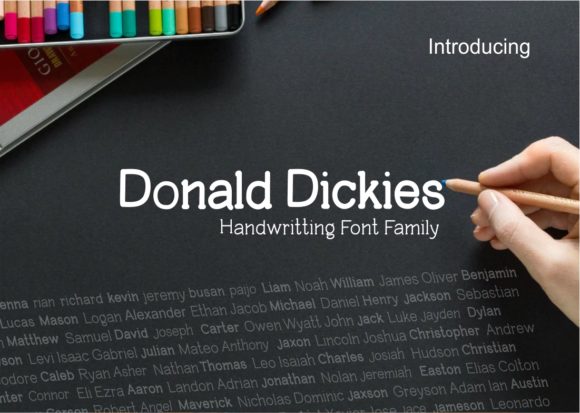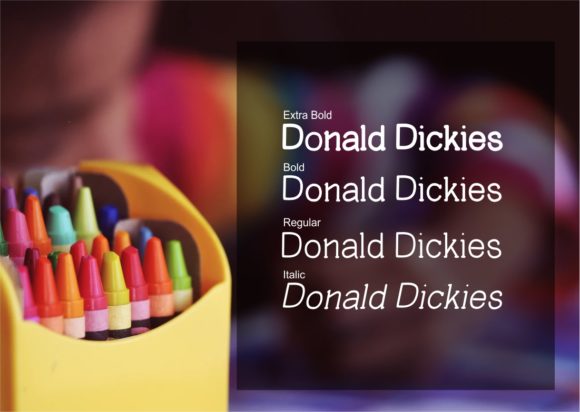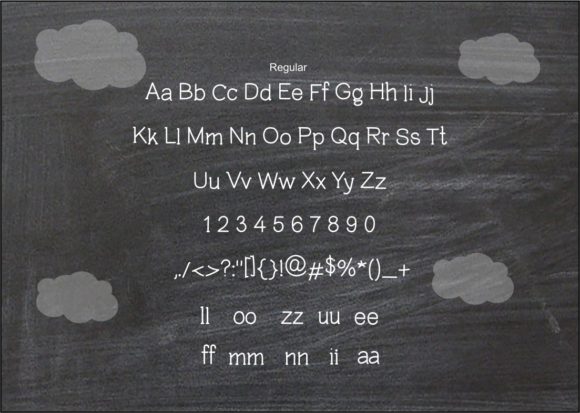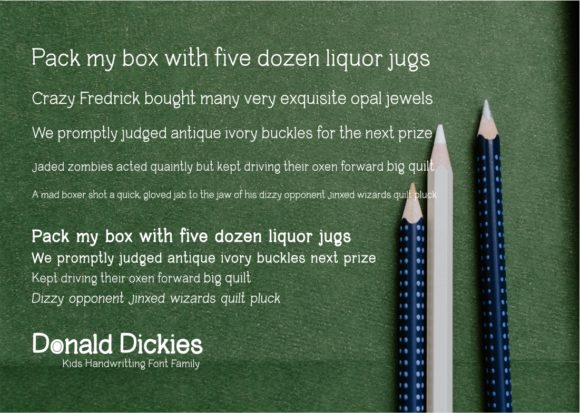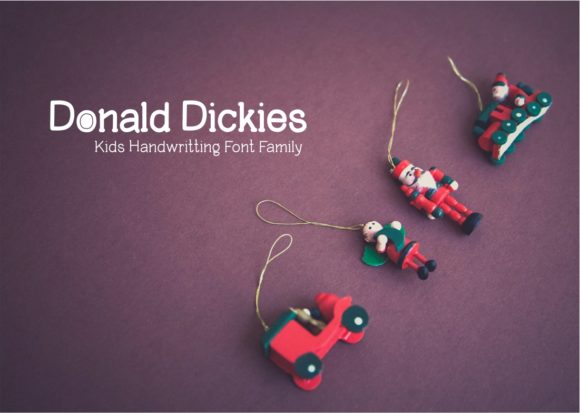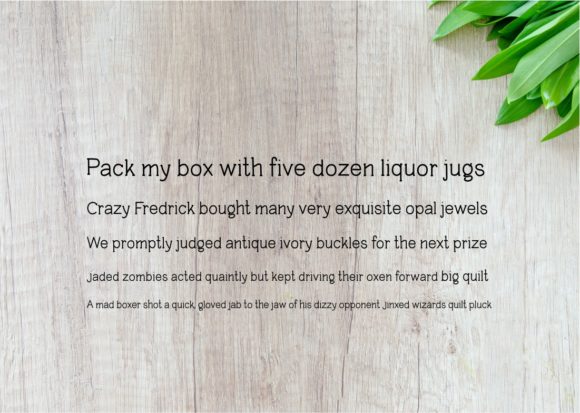
Donald Dickies Font
About Donald Dickies Font
Donald Dickies is a whimsical and effortless handwritten font. Whether you’re looking for fonts for Instagram or calligraphy scripts for DIY projects, Donald Dickies will turn any creative idea into a true piece of art!